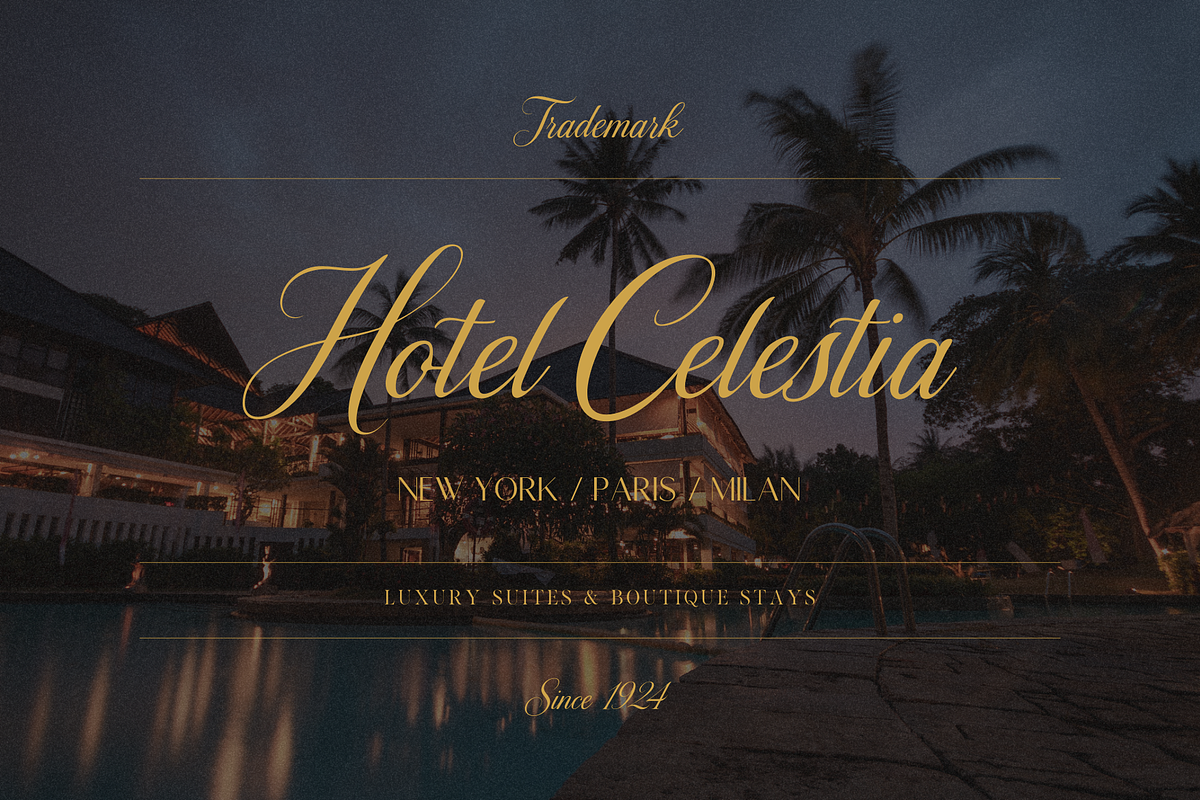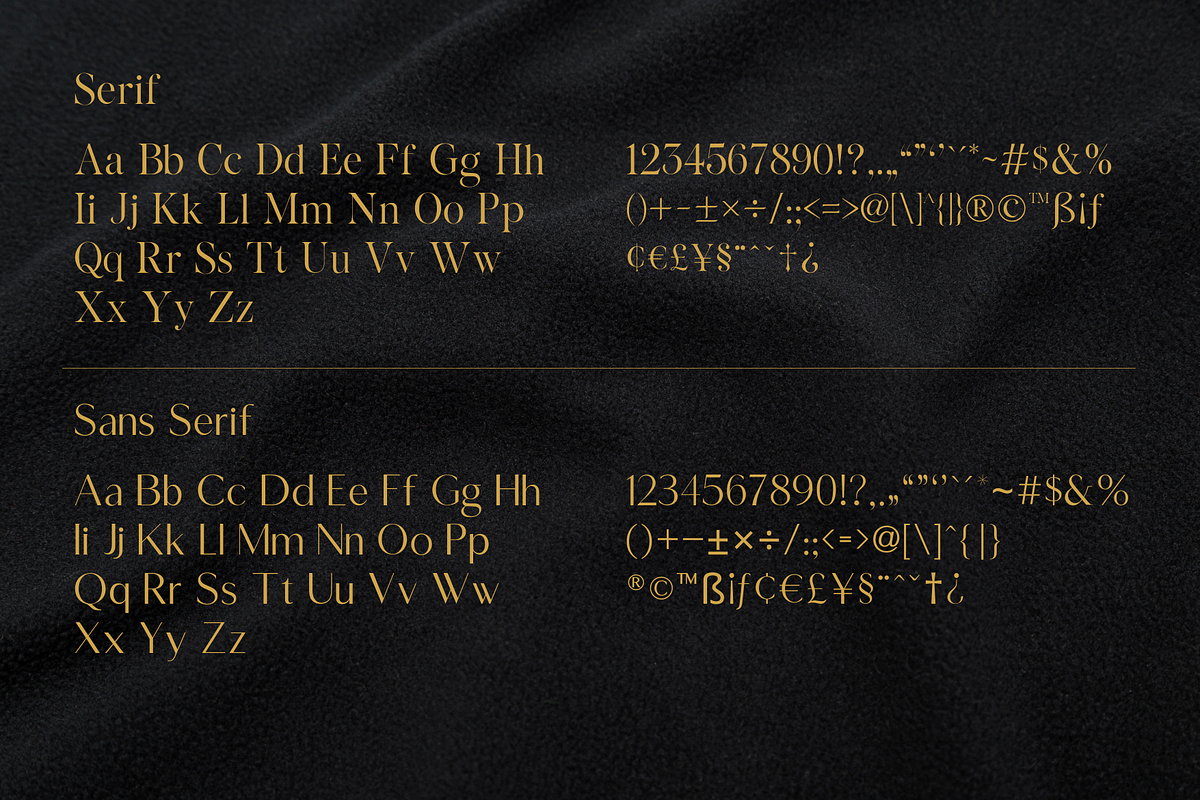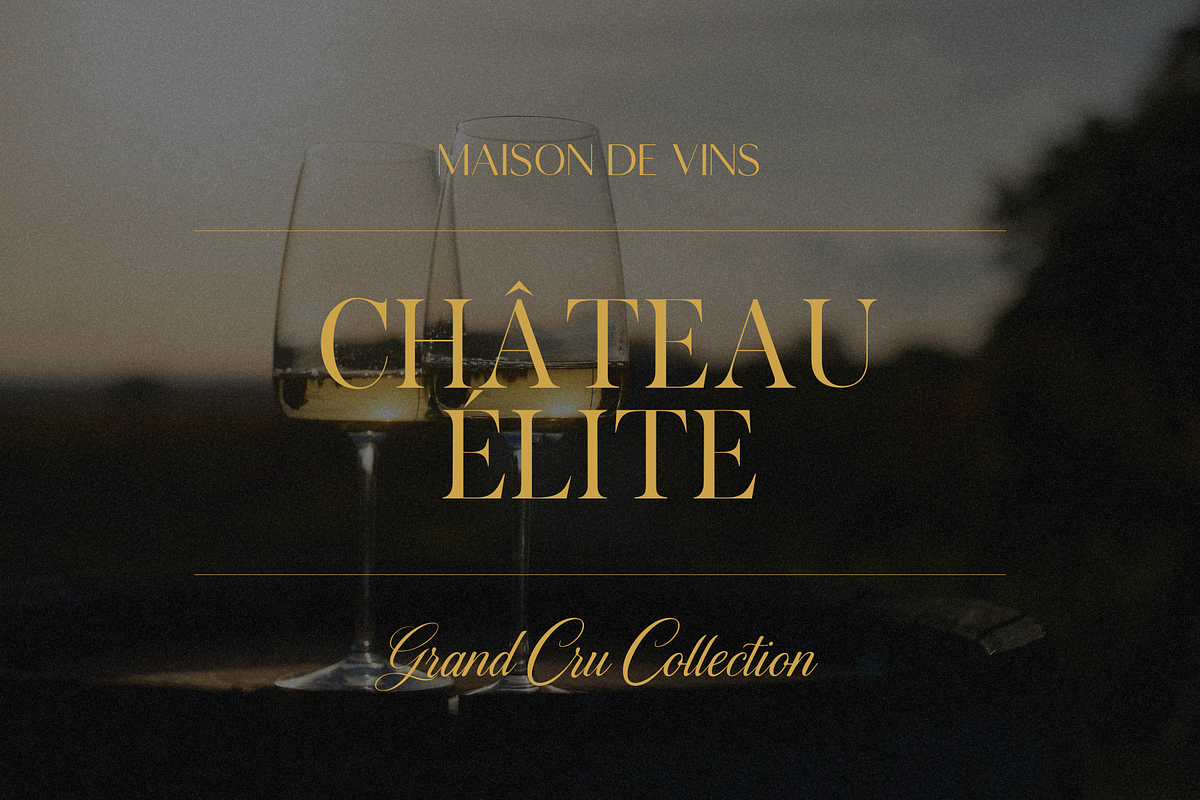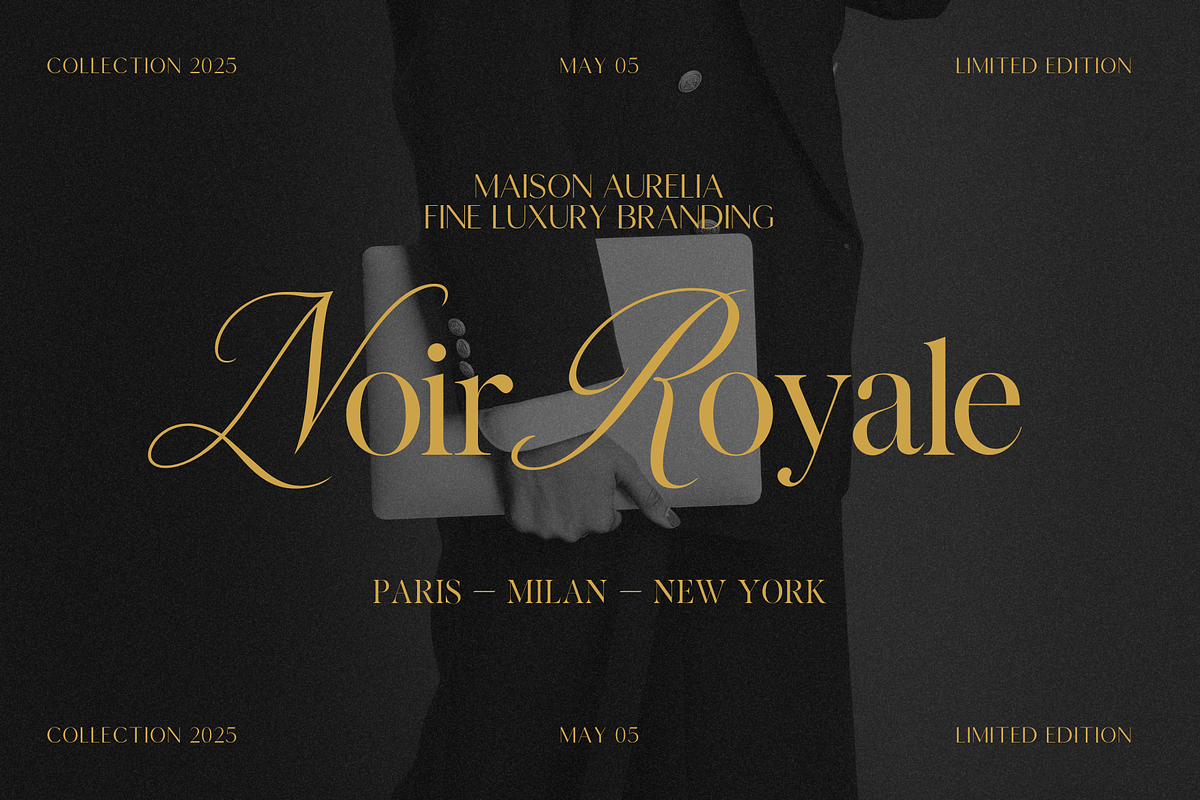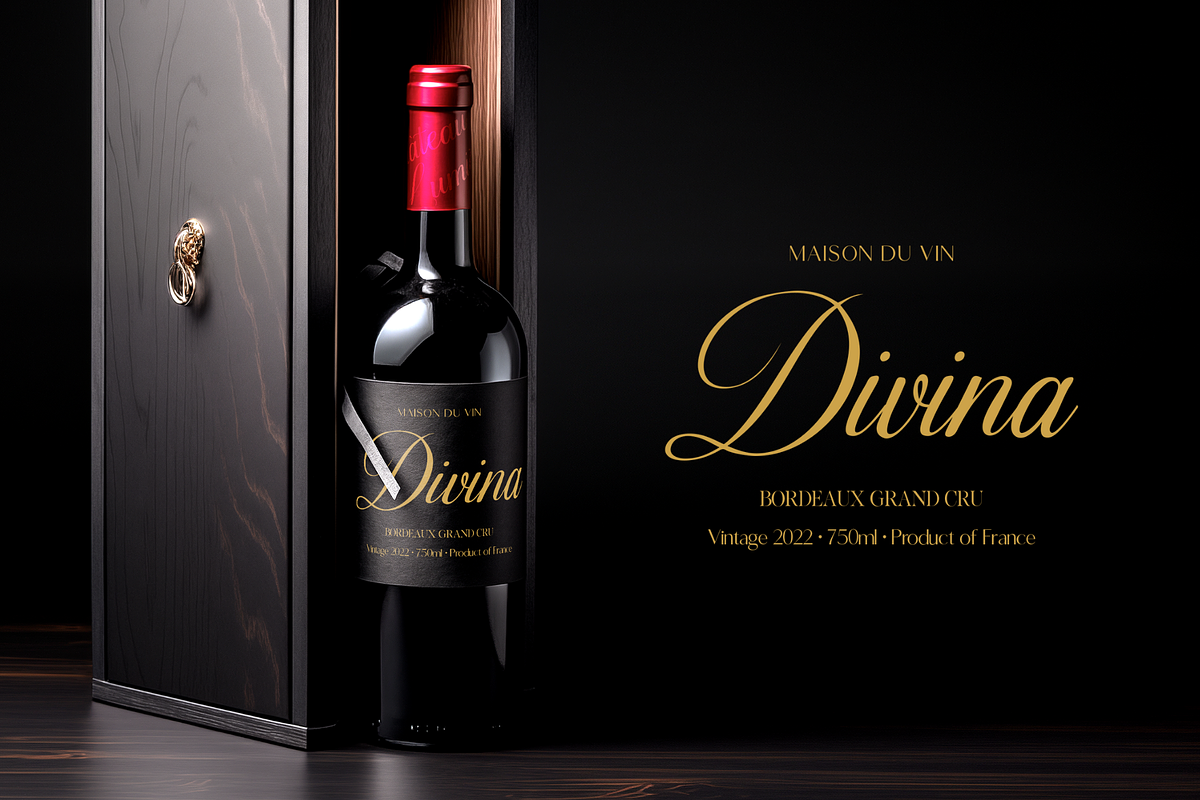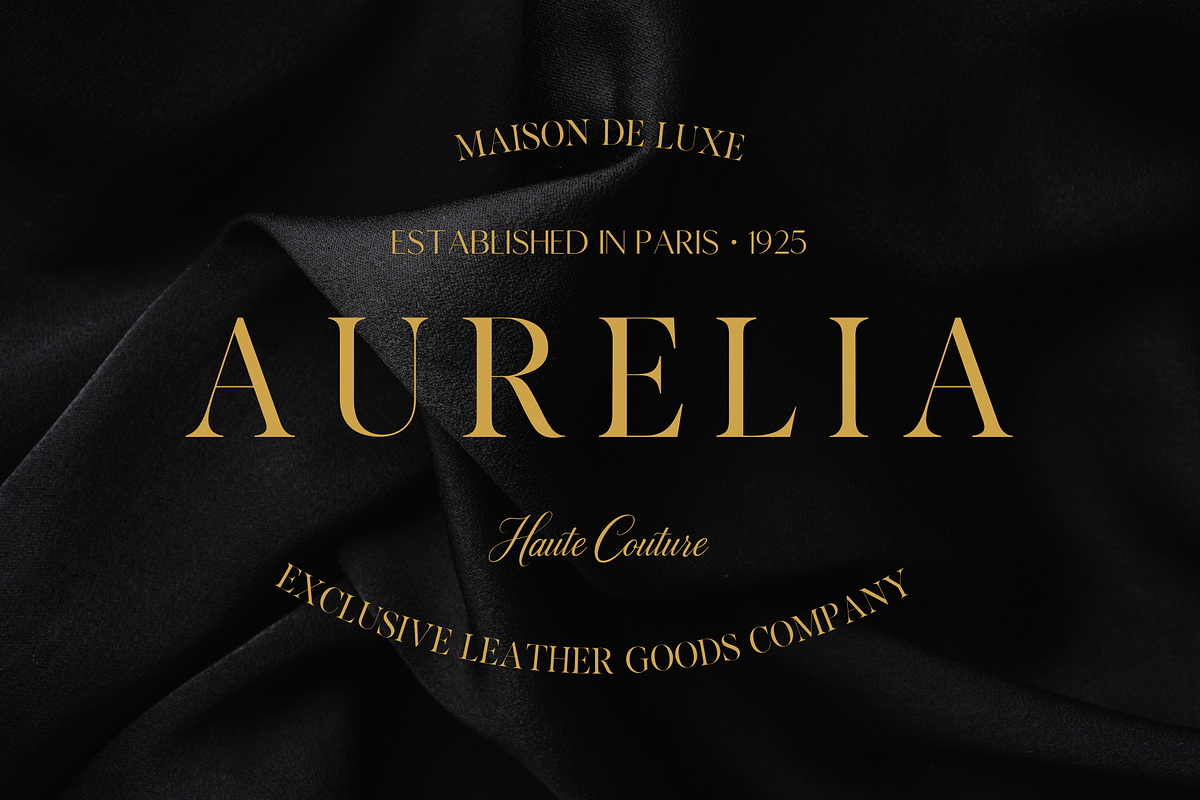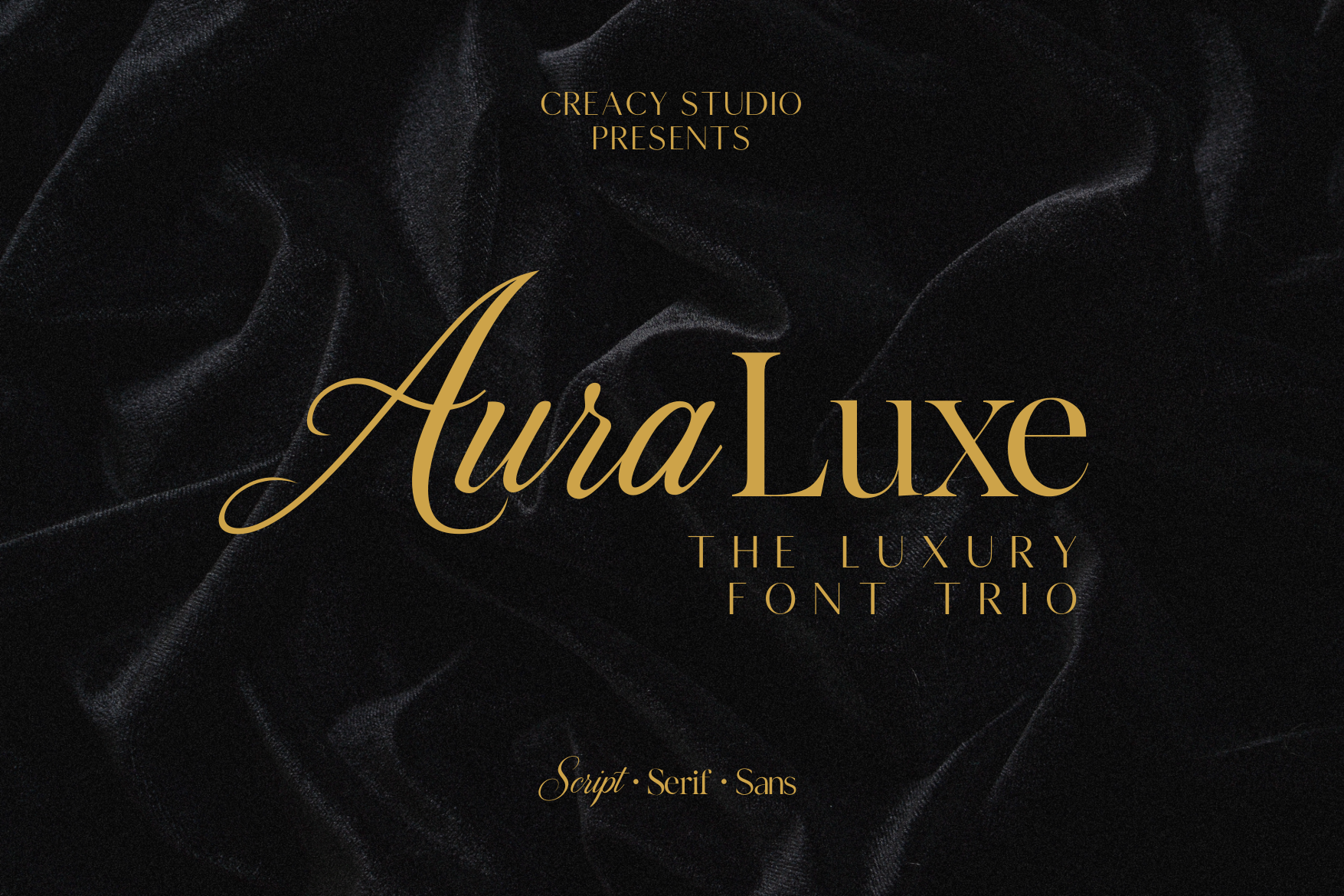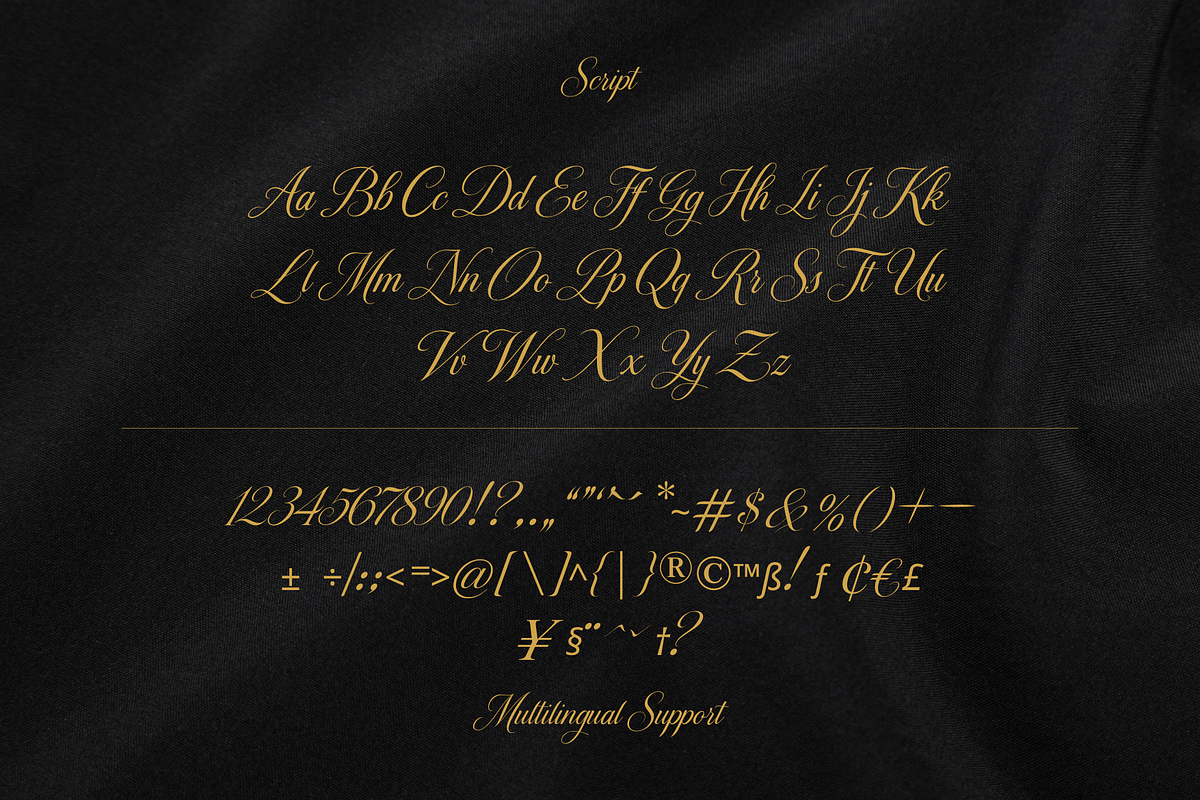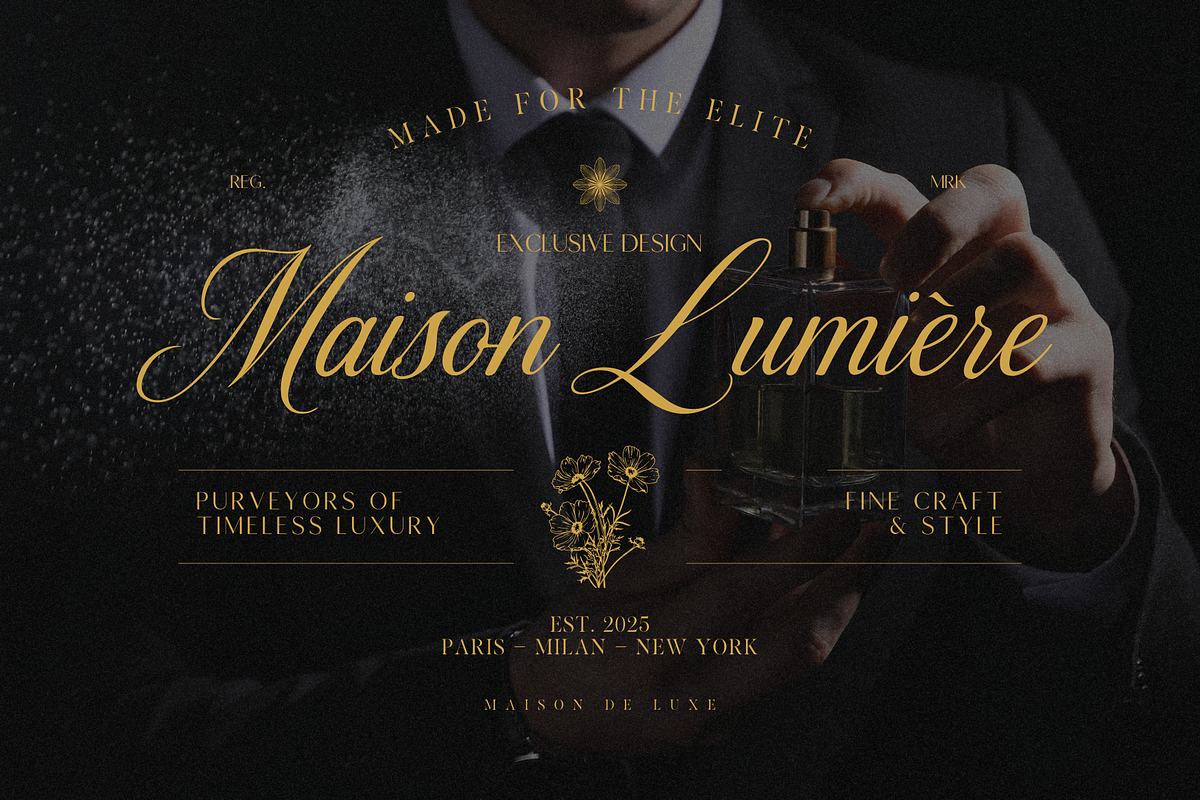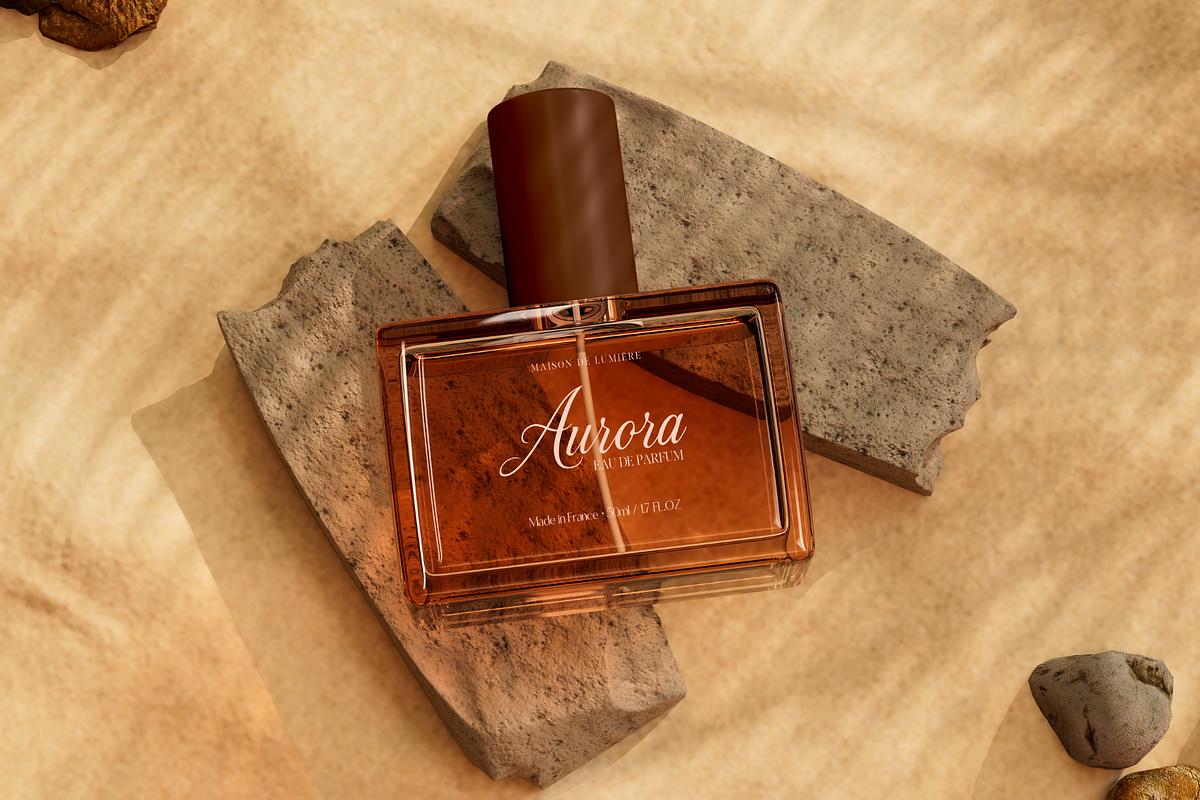
Auraluxe – The Luxury Font Trio
Unveil timeless elegance with Auraluxe, a luxury font trio that blends sophistication and versatility. Featuring an exquisite Script, a refined Serif, and a sleek Sans, this collection is crafted to elevate your design projects with a premium touch.
Perfectly balanced between classic refinement and modern minimalism, Auraluxe is the ideal choice for perfume packaging, wine & champagne labels, haute couture fashion, boutique hotels, jewelry branding, and elegant stationery.
Mix and match across the trio for endless creative possibilities — from graceful handwritten flourishes to bold editorial headlines and minimal details. With Auraluxe, your designs will exude prestige, exclusivity, and luxury.
- Full uppercase & lowercase
- Numbers, punctuation & symbols
- Luxury Branding & Logos
- Perfume & Cosmetics Packaging
- Wine & Gourmet Labels
- Fashion Editorials & Haute Couture
- Boutique Hotels & Lifestyle Brands
- Wedding Invitations & Elegant Stationery
✨ Auraluxe isn’t just a font — it’s the art of luxury typography.